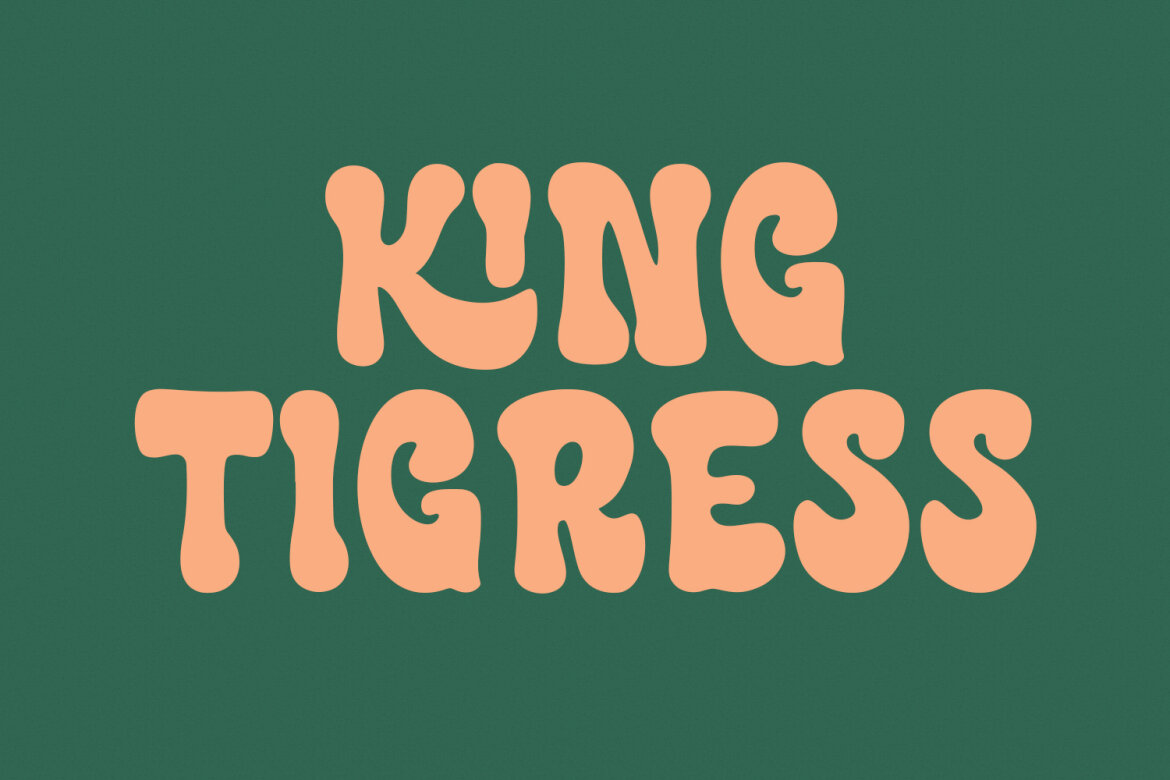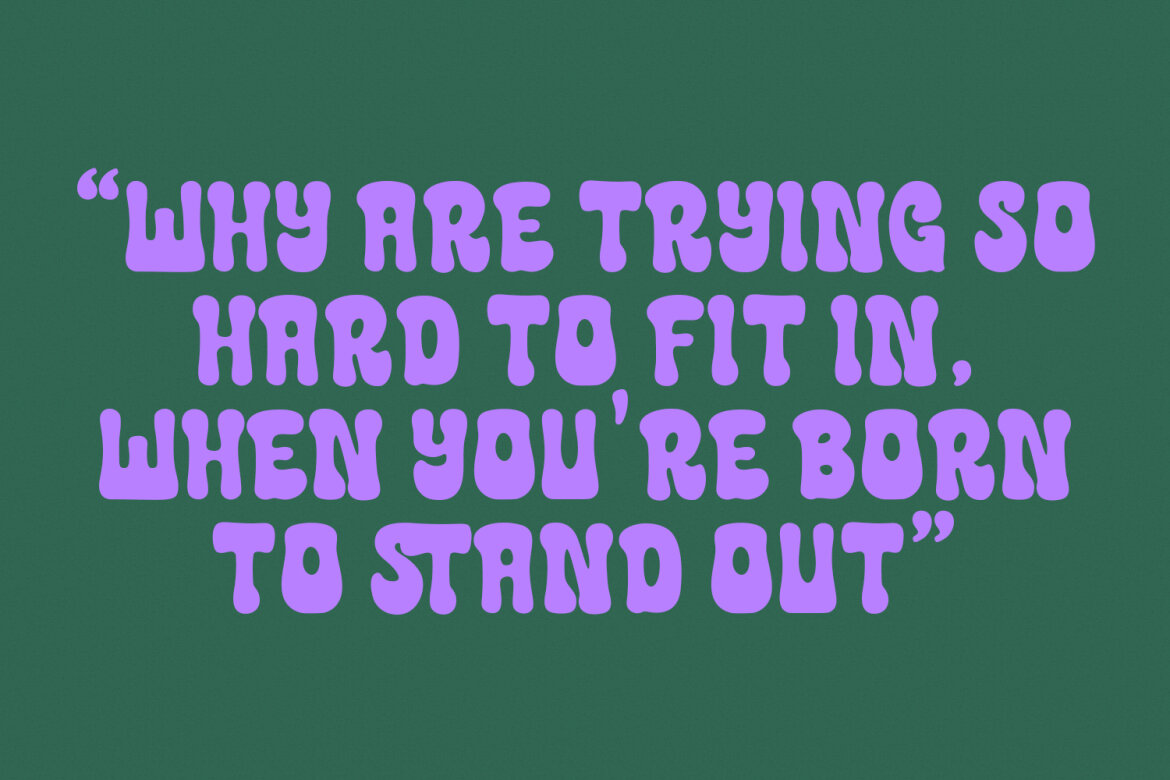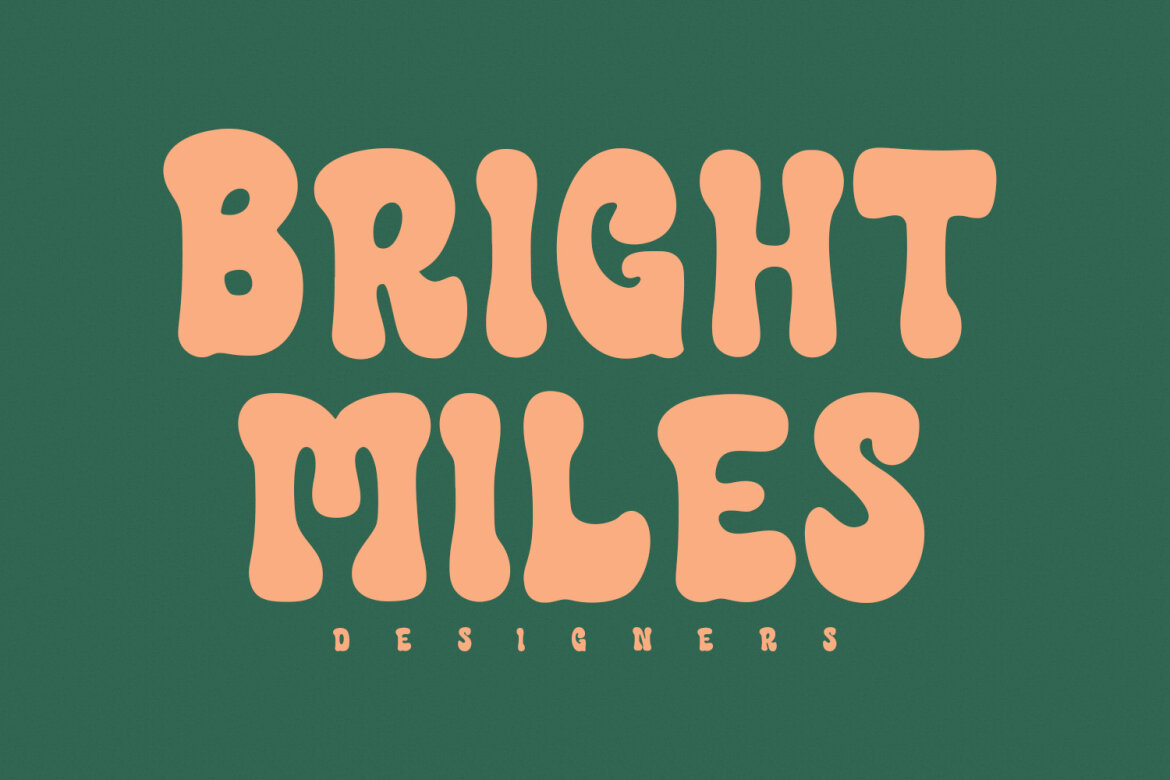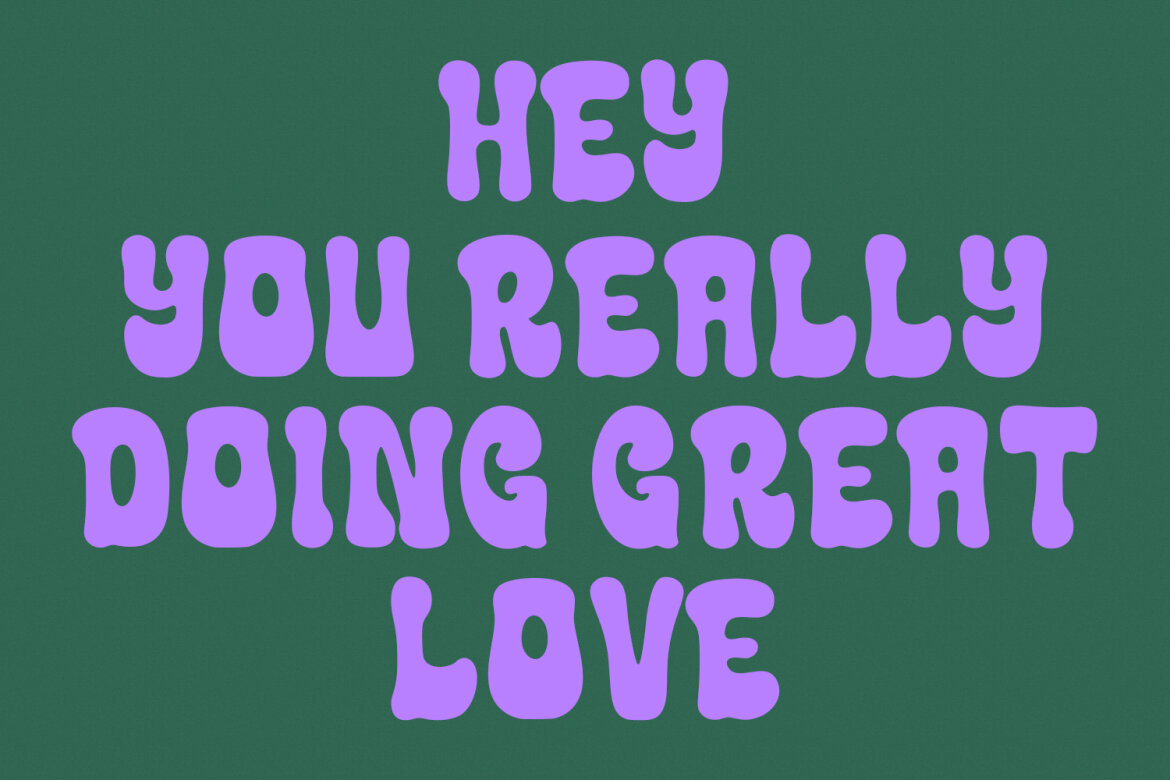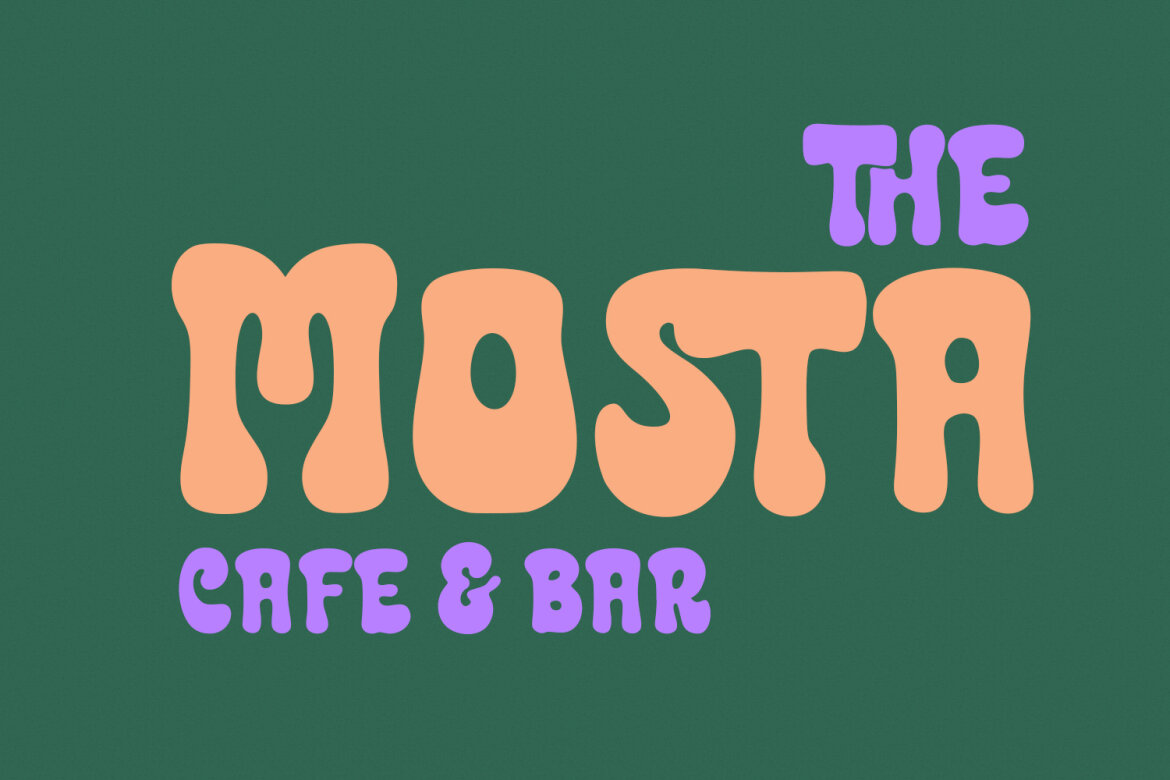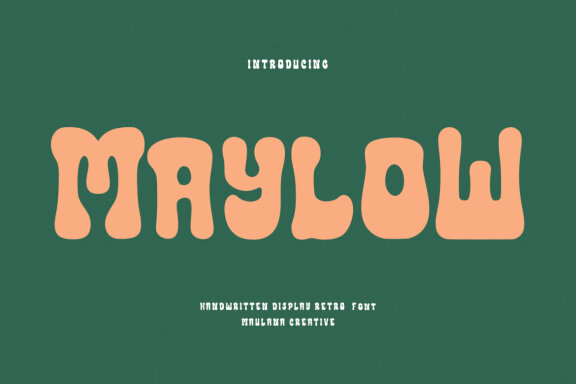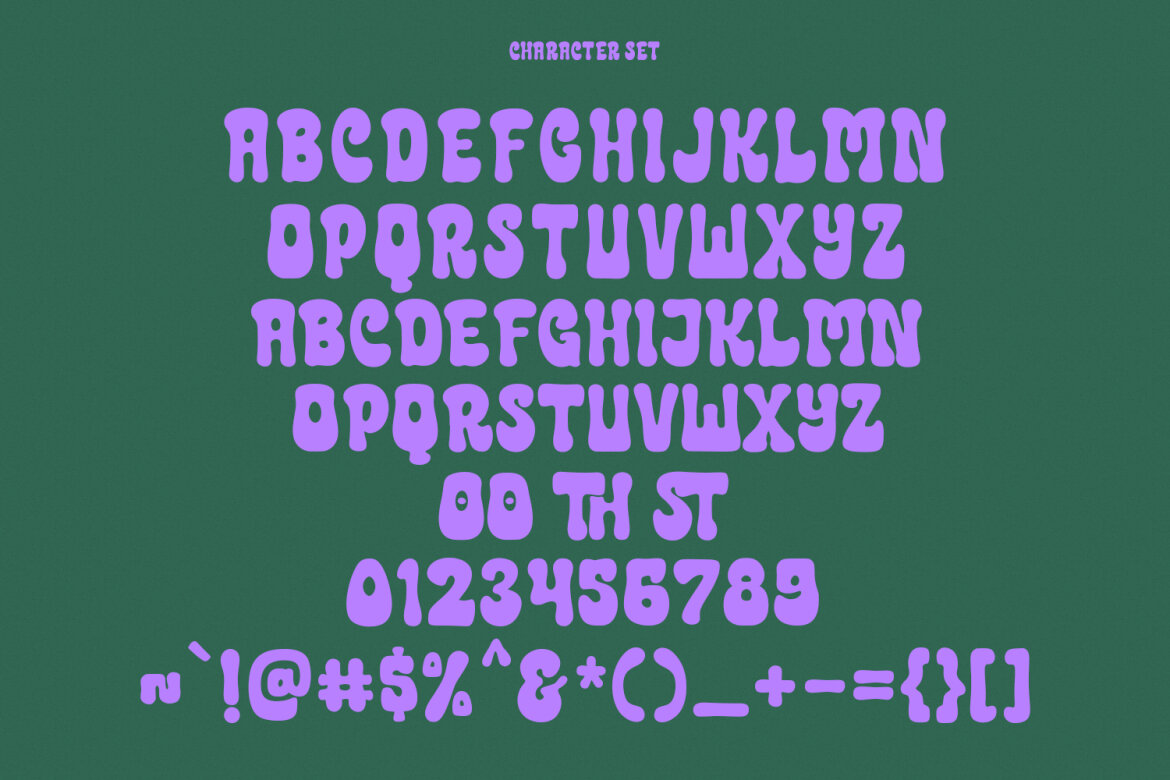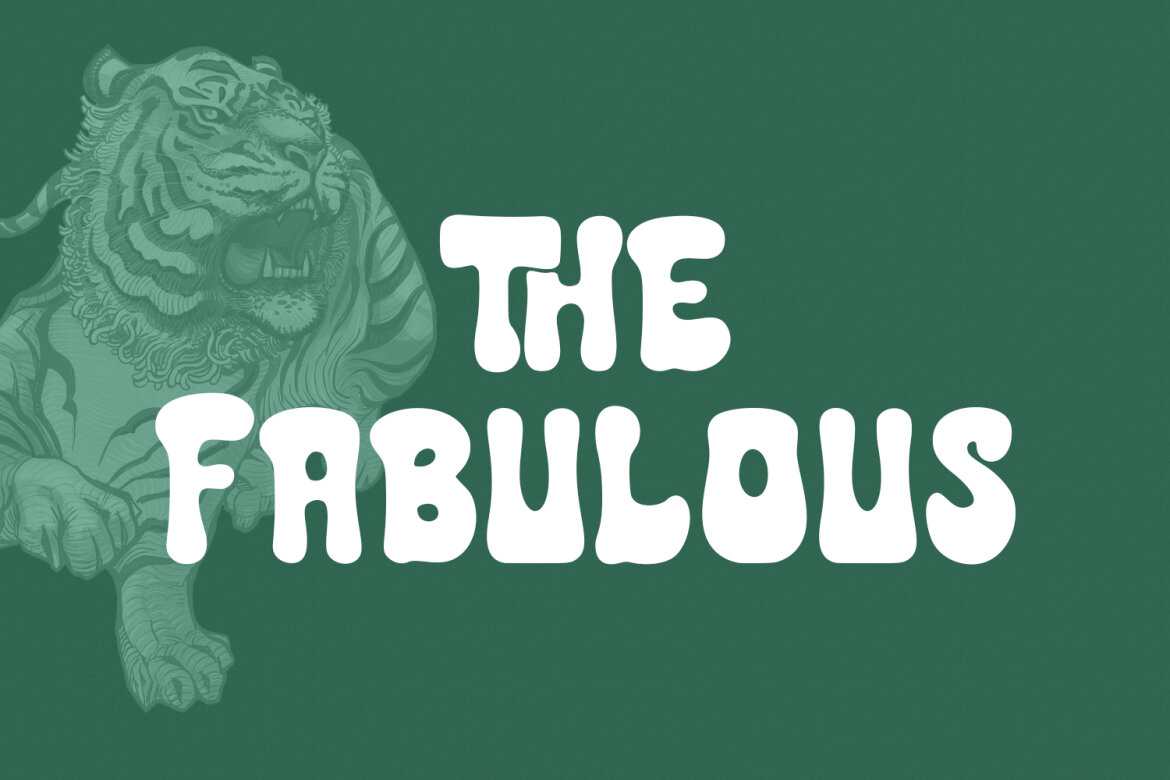
Maylow FREE Display Font
Maylow
Maylow is an expressive freestyle handwritten display script font. With bold consist stroke, fun character with a bit of ligatures and alternates. To give you an extra creative work. Maylow font support multilingual more than 100+ language. This font is good for logo design, Social media, Movie Titles, Books Titles, a short text even a long text letter and good for your secondary text font with sans or serif. Make a stunning work with Maylow font.